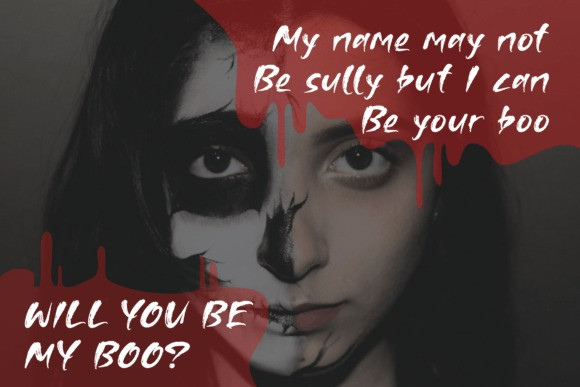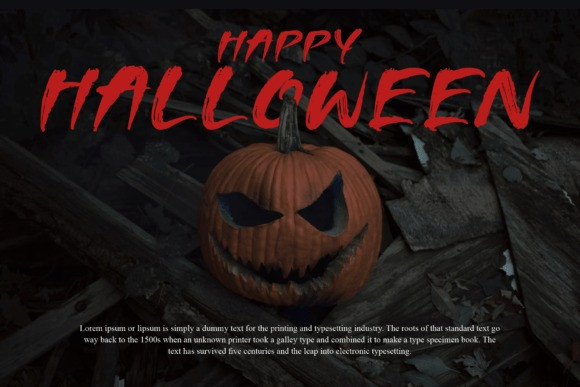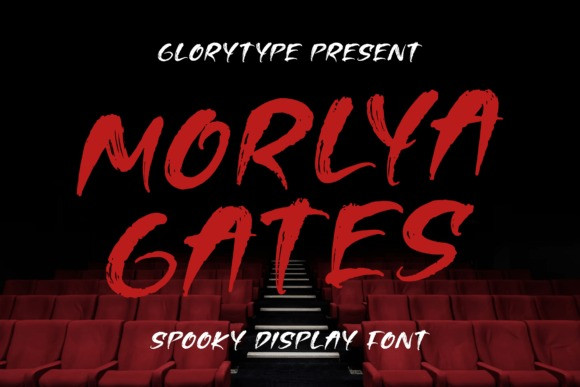
Morlya Gates Font
Morlya Gates – Spooky Brush font suitable for any projects such as logos, branding projects, homeware designs, product packaging, mugs, quotes, posters, shopping bags, t-shirts, book covers, name cards, invitation cards, greeting cards, labels, photography, watermark, special events, and all your other lovely projects that need a spooky taste.